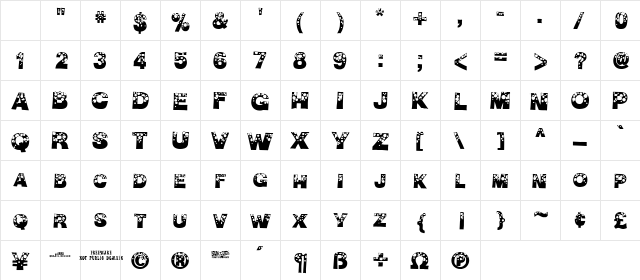
Complete Bubble Man Regular glyph index. Displaying only characters natively supported by Bubble Man Regular font.
Bubble Man has an approachable, lighthearted character - its loose, expressive forms are well-suited to children's content, casual branding, and fun-first design.
Font Pairing: Pairs well with a rounded or humanist sans for body copy, maintaining the friendly tone without relying on Bubble Man to carry extended reading.
Pro Tip: Use Bubble Man at larger display sizes where its expressive character can land. Pair with a clean, simple sans for body copy to maintain readability.